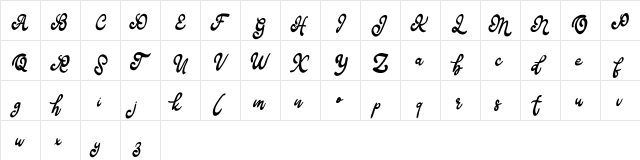
Bafera FREE Regular
Design Context for Bafera FREE Typeface
Bafera FREE is a composed and adaptable typeface that performs quietly and consistently across a wide range of design contexts.